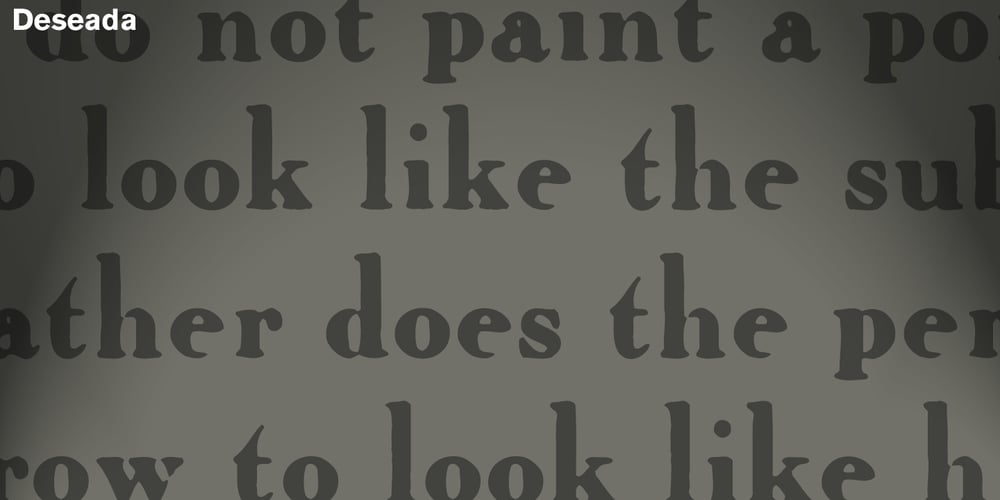
Deseada
Deseada font
Deseada Font Family was designed by Enric Jardí and published by Type-Ø-Tones. Deseada contains 1 styles and family package options. Deseada is a blurred roman face with a small x-height —actually a modified Caslon— that fits perfectly into retro environments. Use it as a parody, it’s just a sort of Catalan custom.